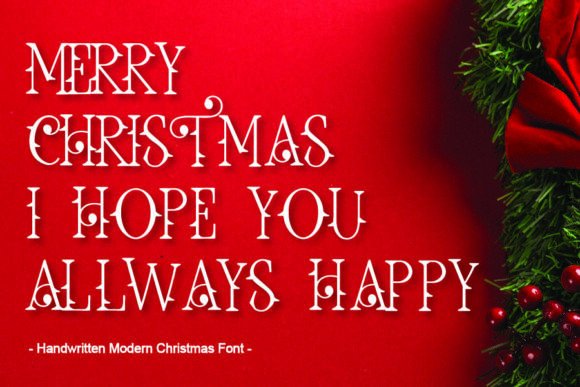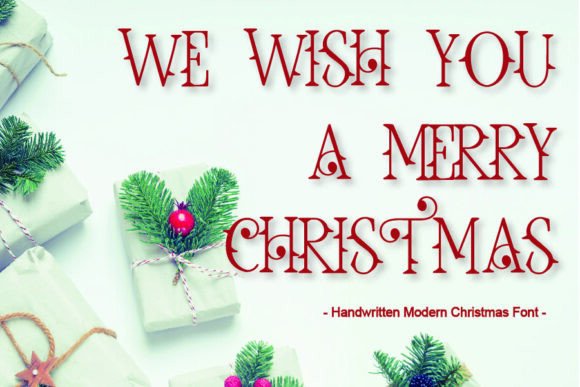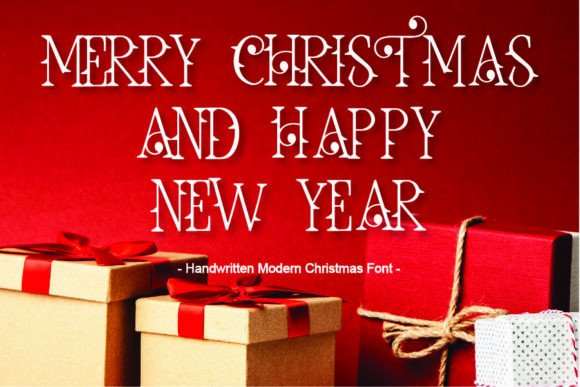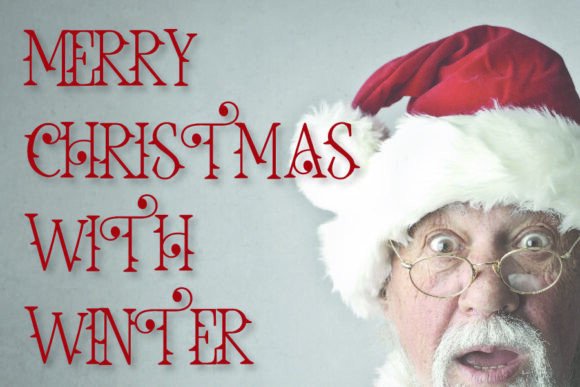
Unlock the Magic of Christmas Beautiful Font
As the holiday season approaches, designers and artists alike often find themselves in a flurry of creative activity, searching for the perfect font to bring their visions to life. It’s that moment of inspiration, when the perfect font magically appears, that sets the tone for a truly spectacular design project. For those in search of that elusive font, we’re thrilled to introduce Christmas Beautiful Font – a masterpiece of elegance and whimsy.
This enchanting font is designed to add a touch of sophistication and charm to any design project, making it a valuable asset for designers seeking to elevate their creations. Whether you’re crafting festive holiday cards, designing merry websites, or simply adding a dash of whimsy to your social media posts, Christmas Beautiful Font is the perfect companion to help you bring your imagination to life.
Key Features of Christmas Beautiful Font
- Font Size: The font comes in 4 different sizes: Regular (1000 characters), Medium (2000 characters), Bold (3000 characters), and Extra Bold (4000 characters), catering to various design needs.
- Unique Characteristics: Christmas Beautiful Font features intricate, hand-drawn designs, ornate details, and festive elements, making it perfect for holiday-themed designs, invitations, and packaging.
Christmas Beautiful Font Review
Overall, I’m quite impressed with the Christmas Beautiful Font. It’s a beautiful and elegant font that captures the spirit of the holiday season. ✨
- The font is incredibly festive and perfect for any holiday-related project. It’s a great choice for Christmas cards, invitations, or even digital ads.
⚠️ While the font is beautiful, it’s not without its limitations. Here are a few things to consider:
- The font is only available in a few weights, which may limit your design options.
- The font may not be suitable for all types of holiday projects, such as modern or minimalist designs.
The Christmas Beautiful Font is a great choice for designers looking to add a touch of holiday magic to their projects. While it’s not perfect, its festive design and customization options make it a great addition to any designer’s toolkit.
Christmas Beautiful Font is perfect for:
Christmas card designs
Holiday invitations
Seasonal social media graphics
Winter-themed presentations and documents